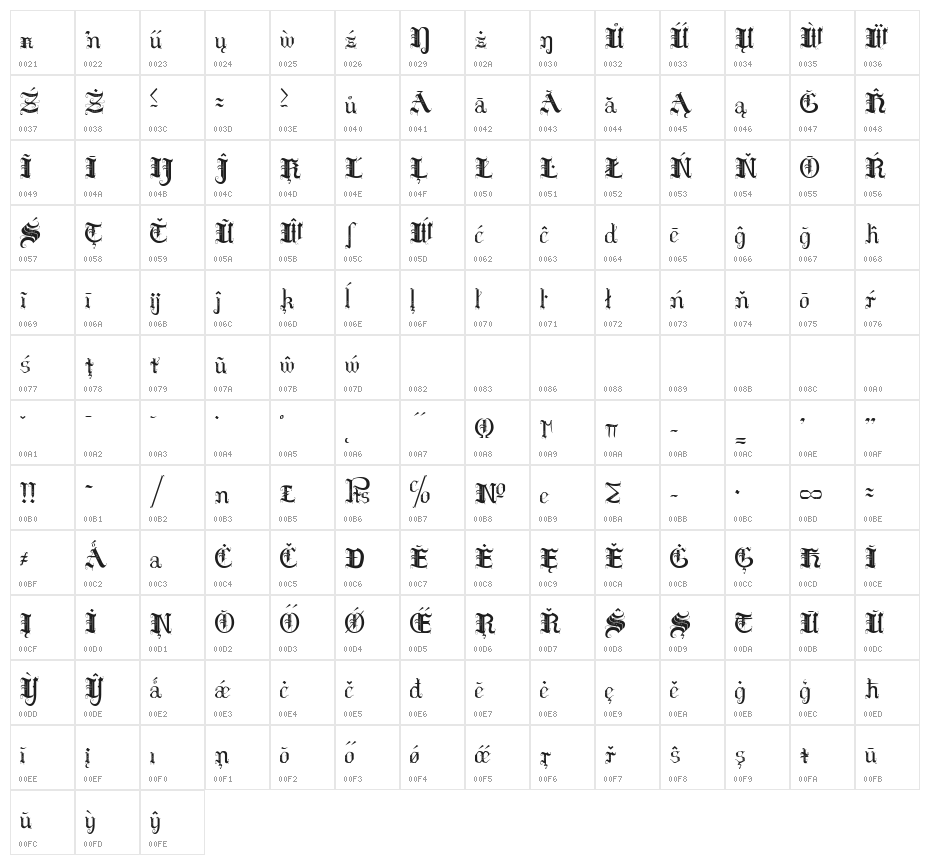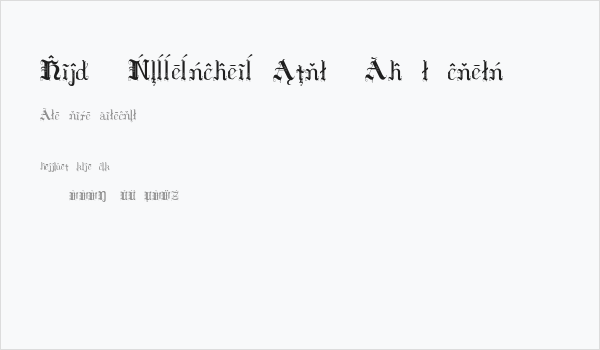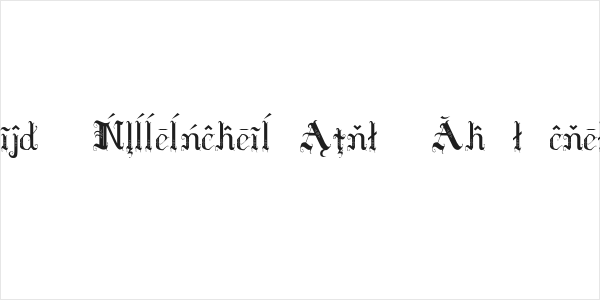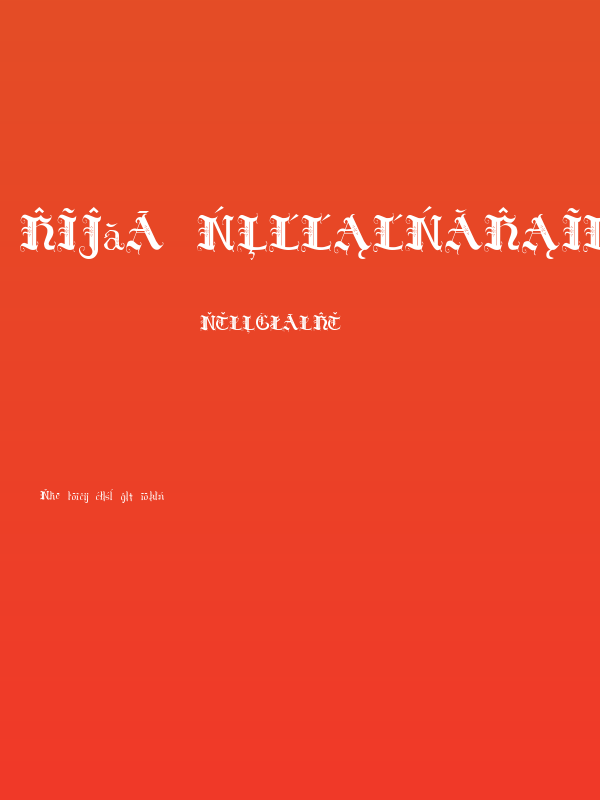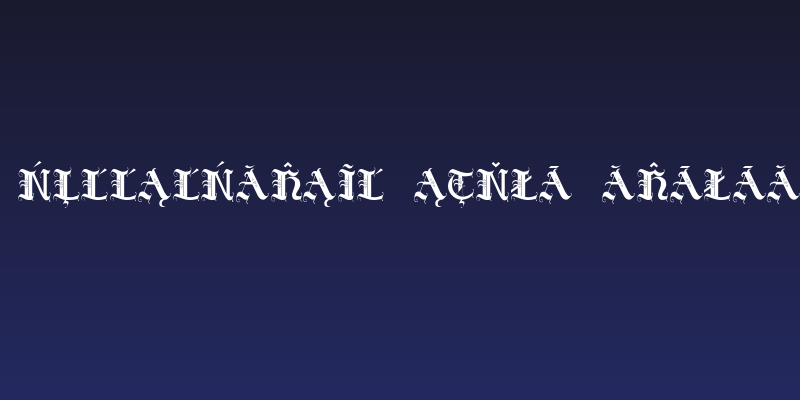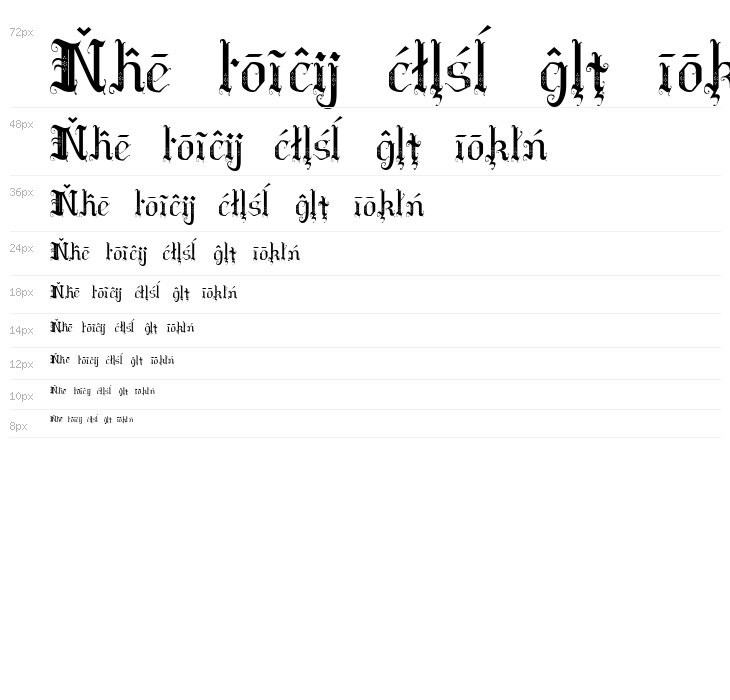
Hilda Sonnenschein Extra Characters Font
Hilda Sonnenschein Extra Characters Description
This font exhibits a highly decorative and ornate style, reminiscent of traditional blackletter typefaces. Each character is adorned with intricate flourishes and embellishments, giving it a regal and gothic appearance. The uppercase letters are particularly elaborate, with extended serifs and additional decorative elements that enhance their visual impact. The lowercase letters maintain the same level of detail, ensuring consistency throughout the typeface. The overall design is bold and dramatic, making it suitable for projects that require a strong visual presence. The font's unique style is ideal for creating a sense of historical or classical elegance.
| Use Case | Headlines, Logos, Decorative text |
| Proposed Projects | Ideal for use in invitations, certificates, branding for luxury products, or any project requiring a historical or gothic aesthetic. |